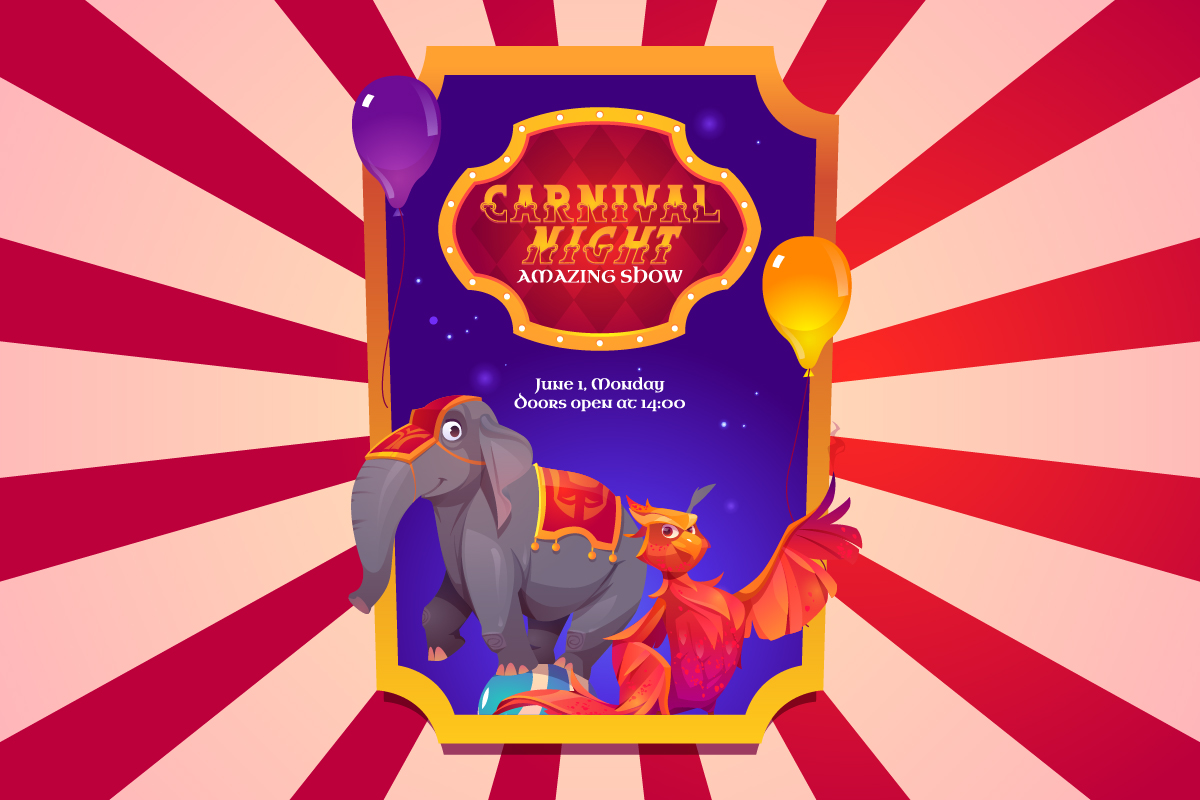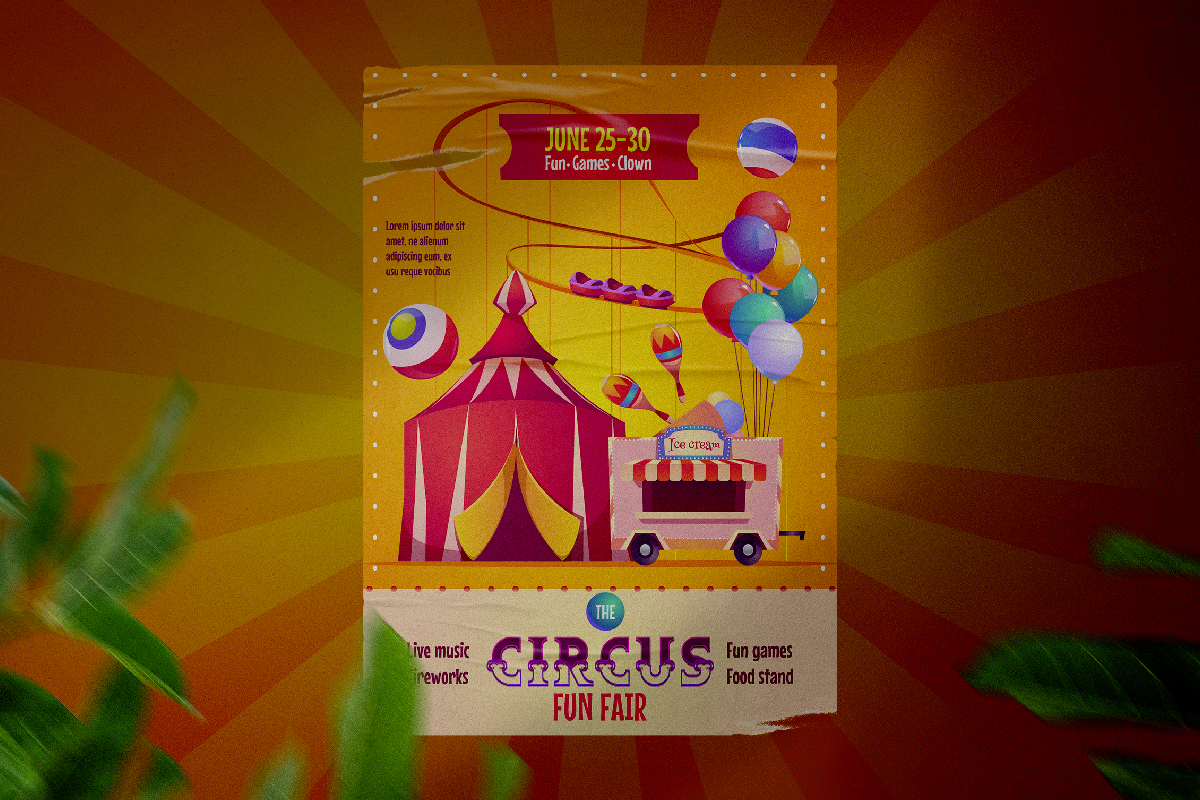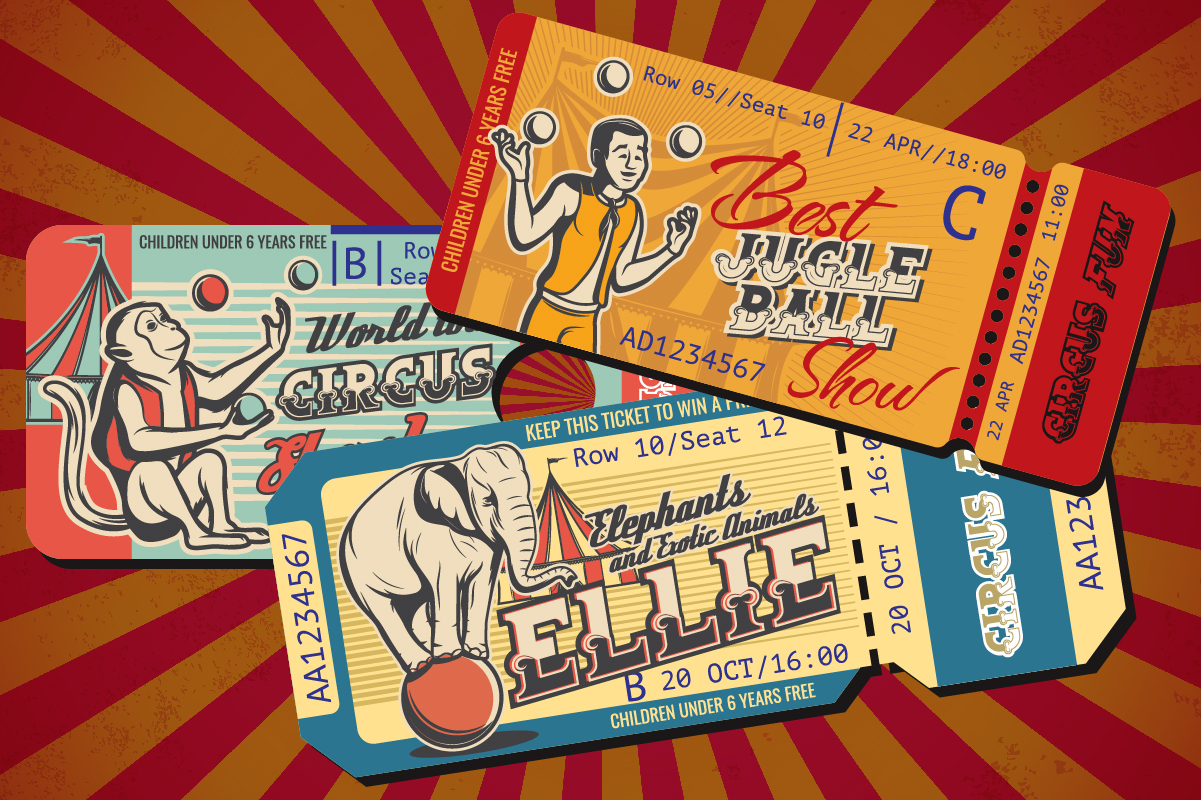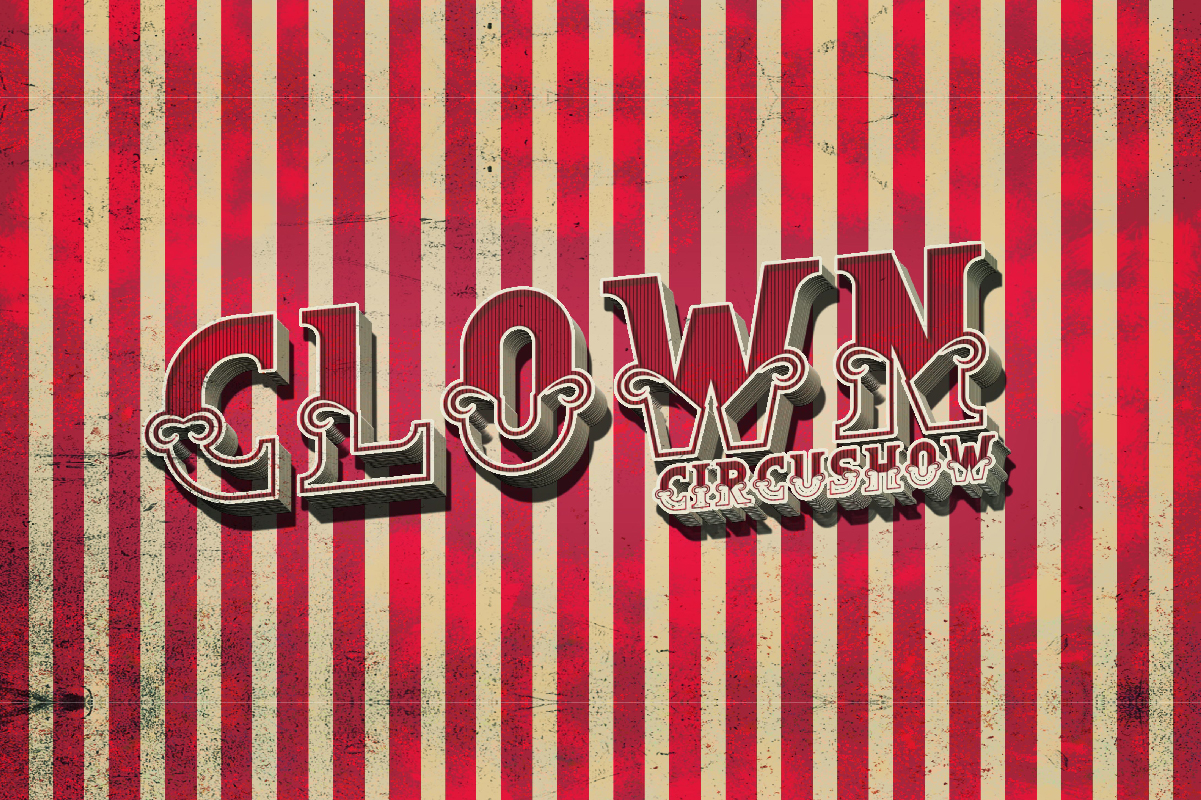
Circus Fun Display Font
This font was handcrafted with two different styles: Regular and Italic. The font will suitable for any your special projects including : brands, promotion, events, games, advertising, magazine, signage, invitation, stationery, social media posts, label, or and any projects that need unique style. The industries for this font is Festival, Comic, Events, Games, Magazine, Music, Movies, etc.